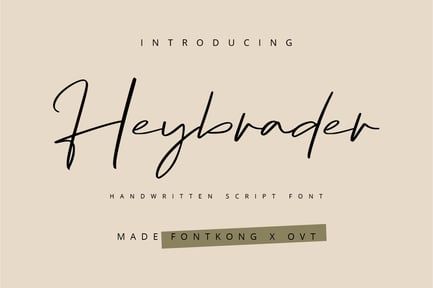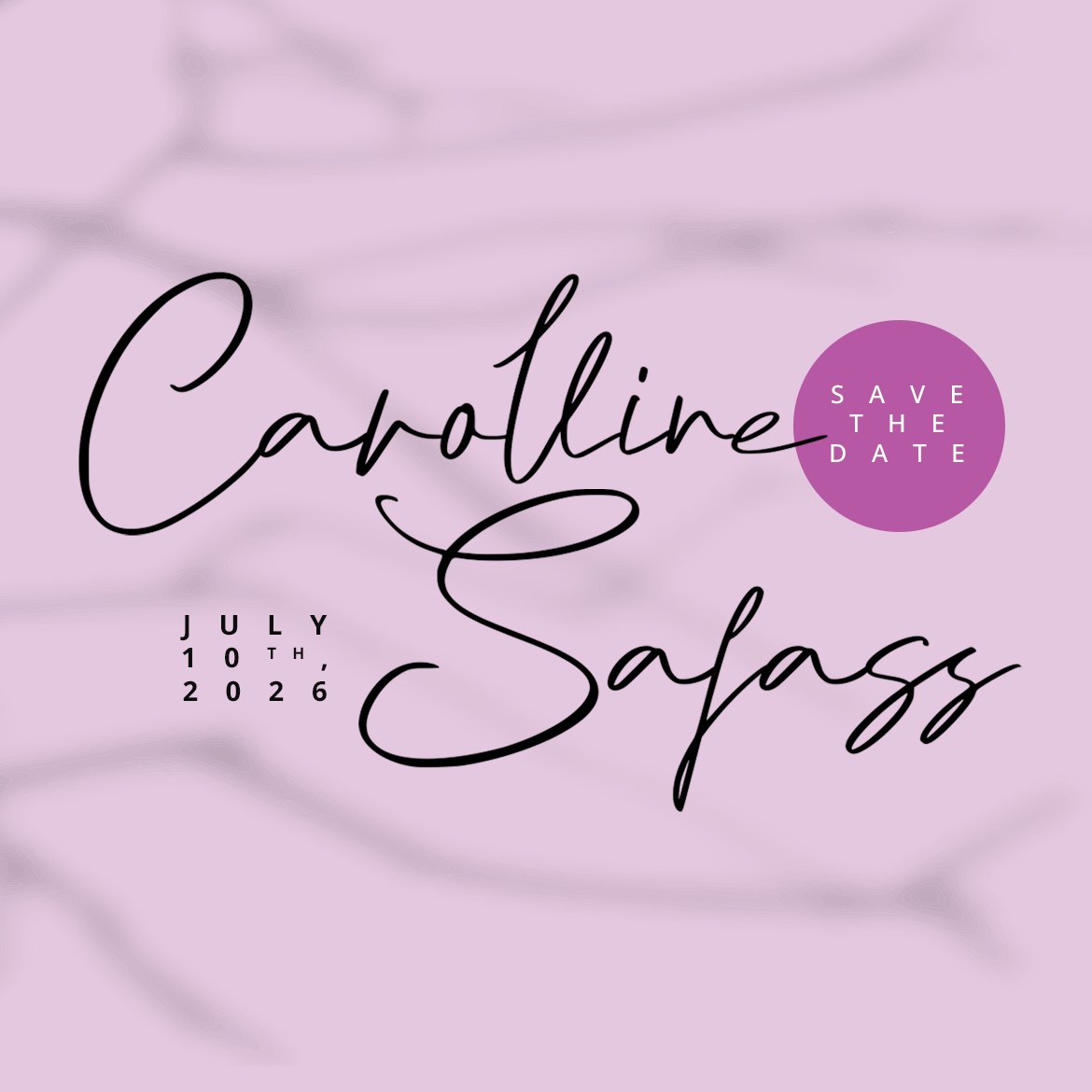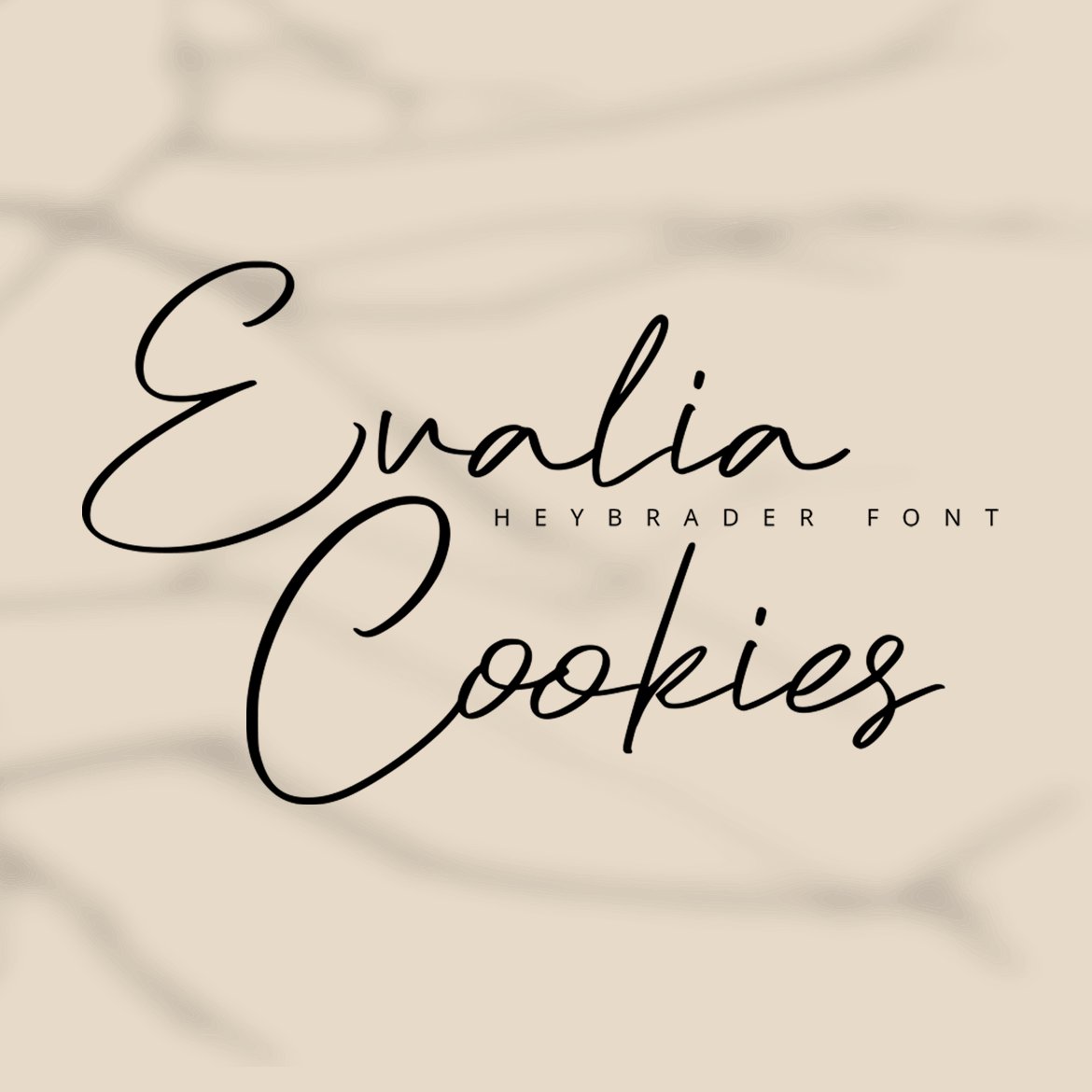
Heybrader – Handwritten Script Font
Ideal for wedding invitations, greeting cards, social media graphics, and branding materials, Heybrader’s elegant and natural strokes provide a warm and inviting aesthetic. Each character is meticulously designed to convey the spontaneity and uniqueness of true handwriting, ensuring your designs resonate with a personal touch.